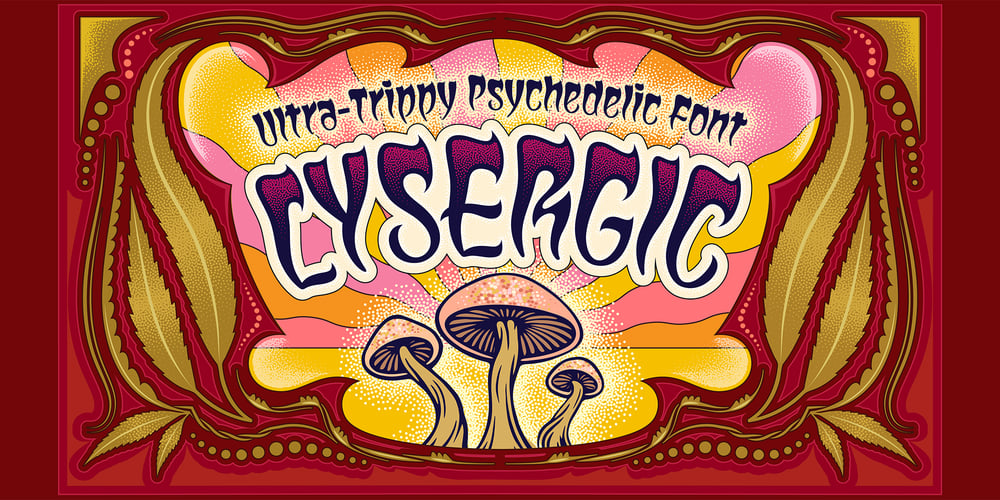
Lysergic Font Family was designed by Mott Jordan and published by Mysterylab. Lysergic contains 1 styles and family package options. Lysergic is a smoky, swirly, super-psychedelic font that exudes 1960s vibes. This font is a tribute to the work of San Francisco artist Rick Griffin, famous for his psychedelic posters, creative lettering ideas, and especially his Grateful Dead album cover art. Griffin was a master of ink stippling and that particular drawing technique proves to be a great way to embellish this style of lettering. Set your time machine to 1969 and fire up your grooviest designs with Lysergic.